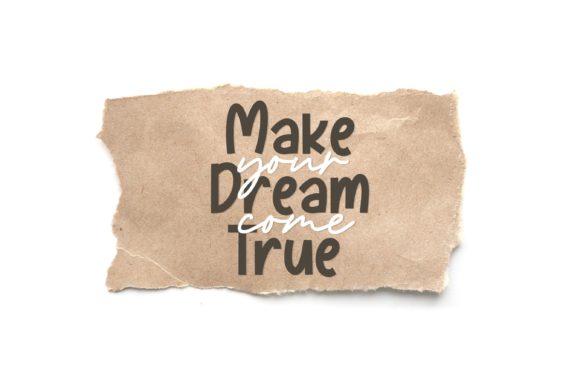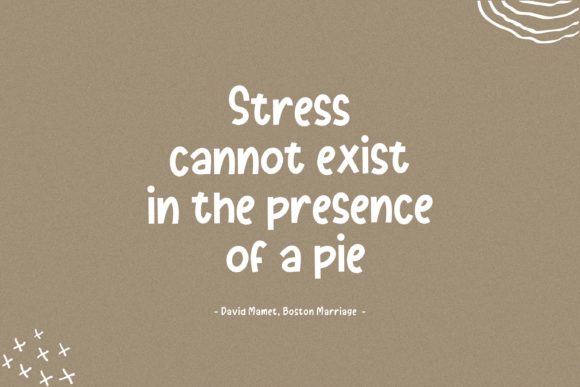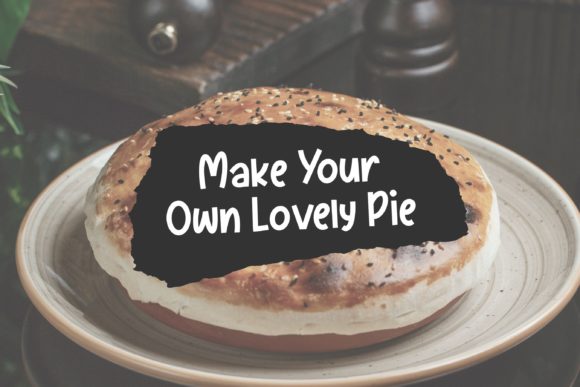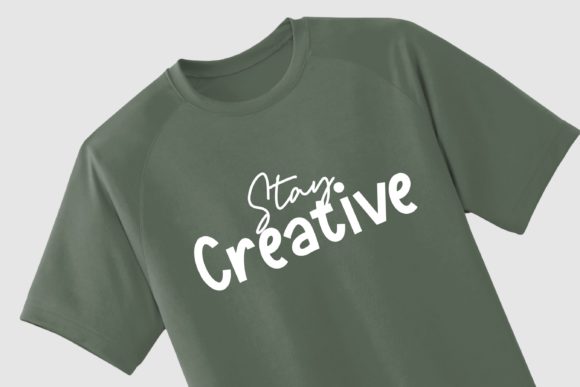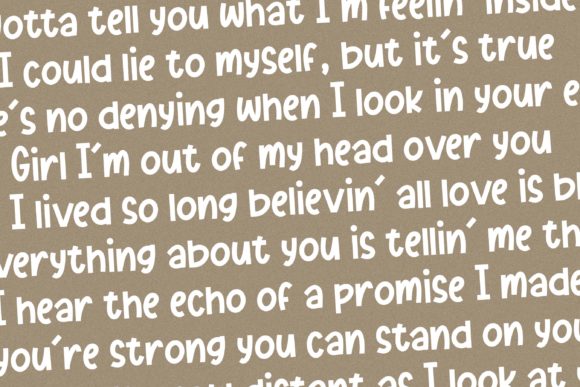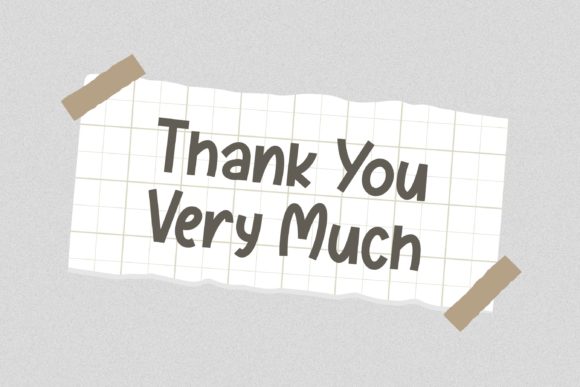
Introduction to Pumkinpie Font
As a designer, have you ever stared at a blank canvas, feeling the pressure to create something truly special? For me, it’s moments like these that I turn to my trusty font stash, searching for the perfect combination of style and personality to bring my creative project to life. And then, I discovered the Pumkinpie Font – a delightful, handwritten font that instantly captured my heart.
With its simple yet elegant design, the Pumkinpie Font is a game-changer for any designer looking to add a touch of whimsy and charm to their work. Whether you’re creating beautiful wedding invitations, stunning social media posts, or gorgeous stationary art, this high-quality font is sure to impress. And the best part? It’s available for free download, making it an invaluable resource for designers of all levels.
So why is the Pumkinpie Font so valuable for designers? For one, its transparent background makes it easy to customize and combine with other design elements. Plus, its unique style is sure to set your creative projects apart from the crowd. Whether you’re a seasoned pro or just starting out, this lovely font is sure to become a favorite in your design arsenal.
Key Features of Pumkinpie Font
- High-quality font design ideal for creative projects and design resources.
- Features a transparent background, making it suitable for use on images and designs with varying backgrounds.
- Designed to be highly legible, even at smaller font sizes, making it perfect for titles and headings.
- Includes a range of unique characters, including punctuation marks and symbols, to enhance its versatility.
Honest Review: Pumkinpie Font
I recently had the chance to work with the Pumkinpie Font, and I’m excited to share my honest thoughts on this design resource.
What works well: ✨ The Pumkinpie Font is a high-quality, free download that’s perfect for creative projects. Its unique design makes it stand out from the crowd, and it’s incredibly versatile. I love how it can be used for everything from typography-heavy designs to subtle backgrounds.
What I was really impressed with is the transparent background option. This feature makes it super easy to incorporate the font into any design, without worrying about background distractions. Plus, it’s always great to have a reliable free download that’s ready to use.
- High-quality, unique design
Limitations: ⚠️ The only downside I found was that the font can be a bit difficult to read at smaller font sizes. However, this is a minor issue, and I’m sure it won’t be a problem for most designers.
Overall, I’m really impressed with the Pumkinpie Font. It’s a fantastic design resource that’s perfect for any creative project. Whether you’re a seasoned designer or just starting out, I highly recommend giving it a try.
For the best results, use the Pumkinpie Font on a transparent background to make your design stand out. This font is perfect for creative projects, such as invitations, posters, and social media graphics. You can also use it in your logo design or branding materials.
Some common use cases for the Pumkinpie Font include:
- Invitations and party decorations
- Logo design and branding materials